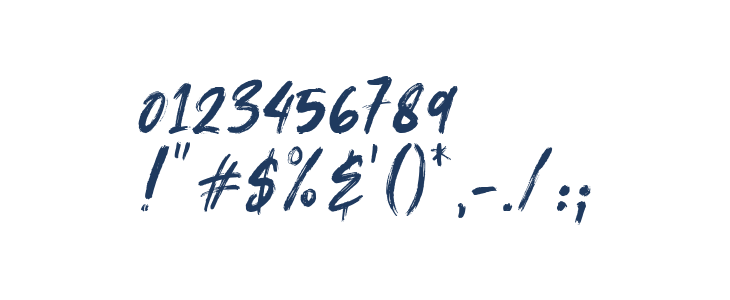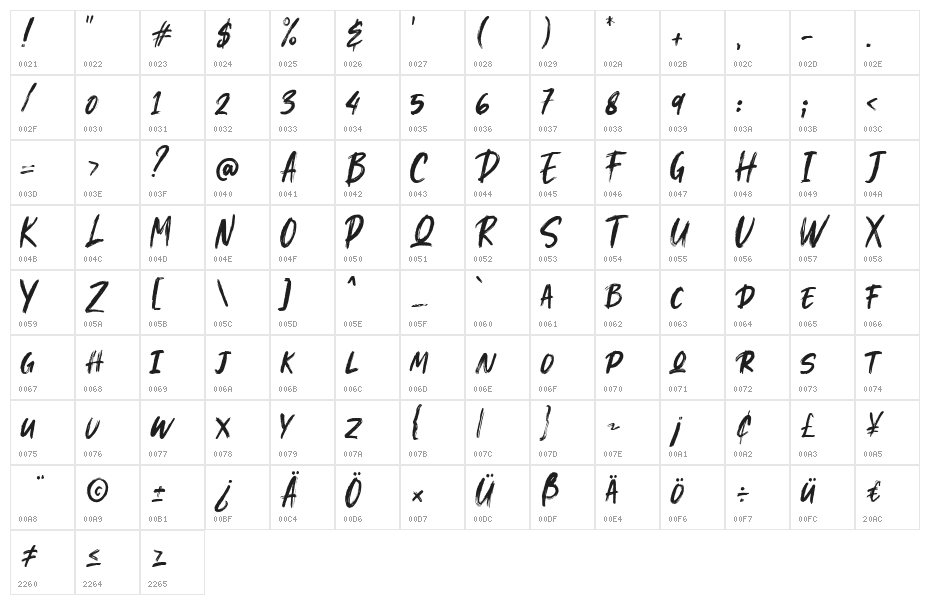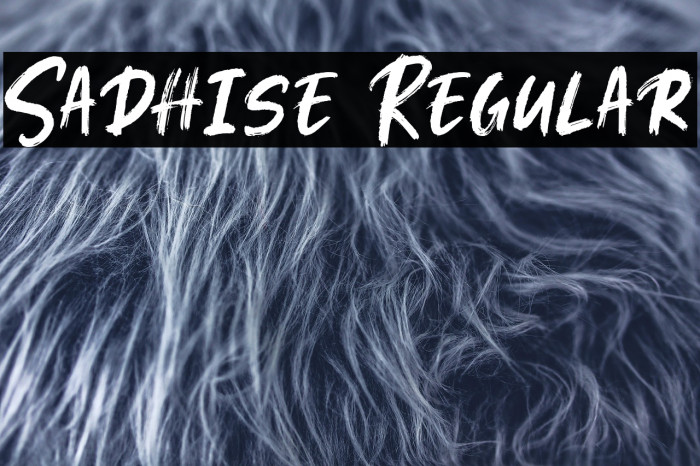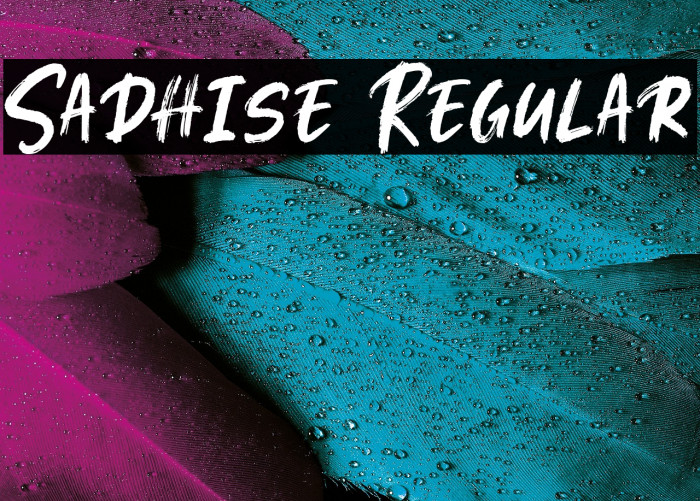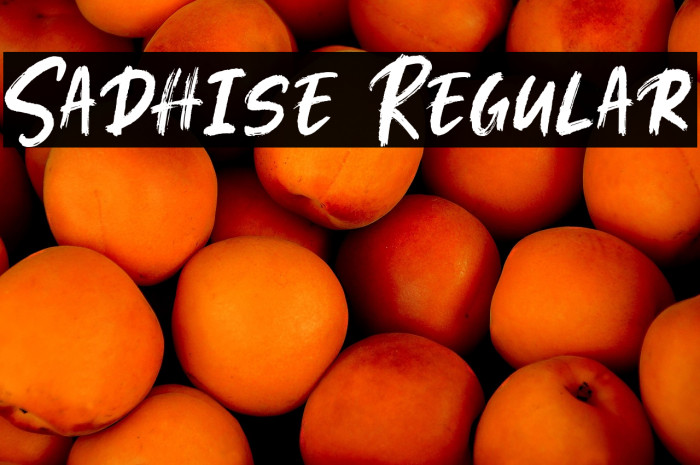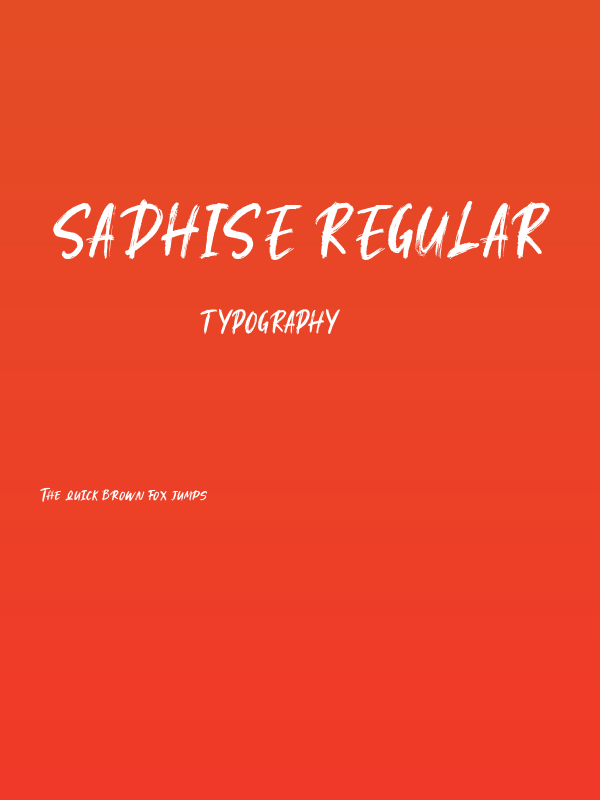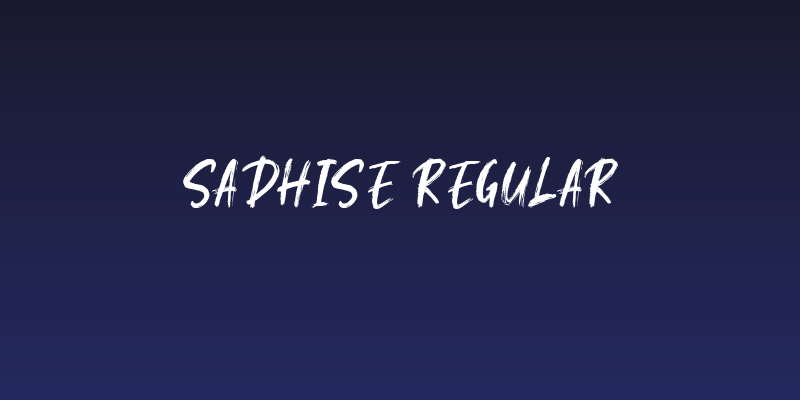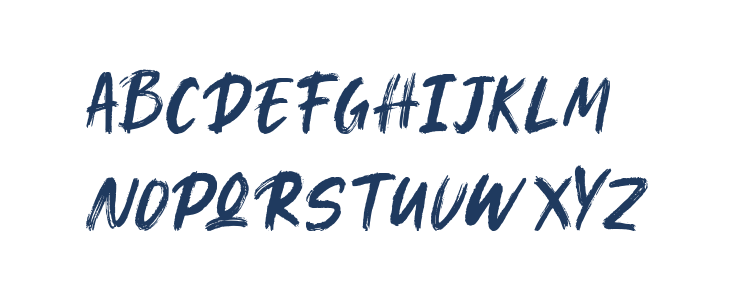
Sadhise Regular Font
Sadhise Regular Description
This font features a dynamic and energetic brush script style, characterized by its bold and expressive strokes. The letters have a hand-painted appearance, with varying thicknesses that add a sense of movement and fluidity. The uppercase and lowercase letters are both distinctive, with a slightly slanted orientation that enhances the casual and artistic feel. The numerals and special characters maintain the same lively aesthetic, making the font versatile for creative projects. The overall design is modern yet retains a touch of vintage charm, suitable for eye-catching headlines and artistic designs.
| Proposed Projects | Ideal for branding, posters, invitations, and any project requiring a bold, artistic touch. |